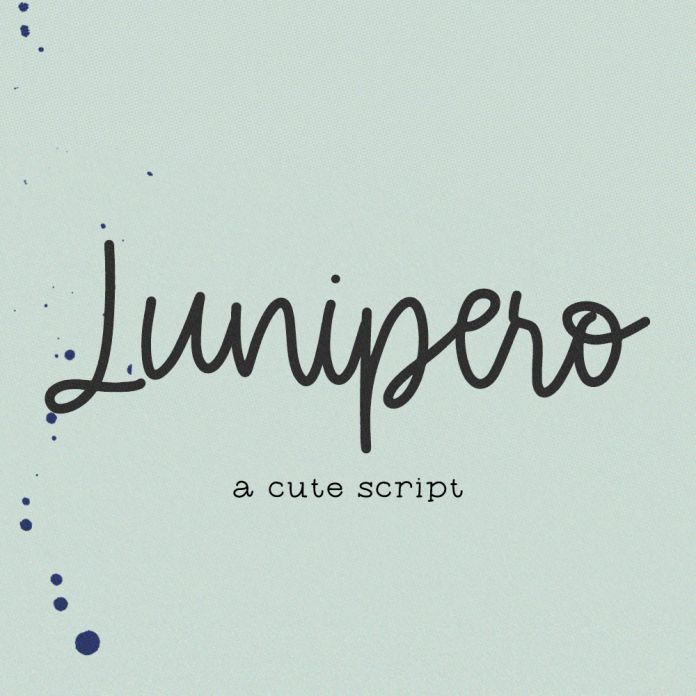
Junipero Script Font
Introducing Junipero, a simple monoline script font! Junipero Script is best for: - creating SVG files for your Cricut or Silhouette machine so you can make cute t-shirts and decals - logos + branding - website design + website accents - think travel blogs, fashion blogs, & more - clean print design, like magazines + flyers - header elements that need handwritten touch - quote graphics for social media Junipero includes: - full upper + lowercase characters - numbers + punctuation - Western European Language Support - 39 ligatures - aa, ad, ag, aq, ax, ca, cg, co, cq, da, dc, dd, dg, do, ex, fd, gd, ha, hd, hg, ia, ic, id, iq, ld, md, na, nd, ng, nq, nx, rc, rd, ro, ta, td, tg, ud, ug - PUA-encoding